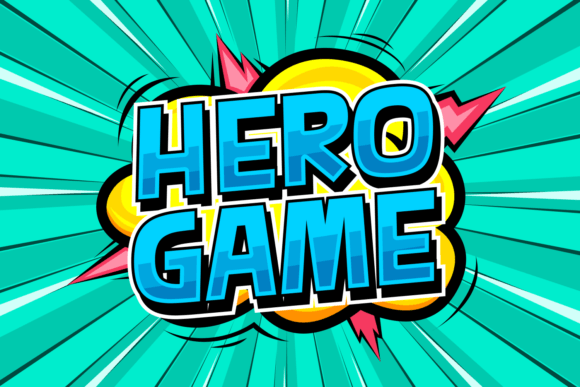
Embark on a wondrous typographic adventure with Hero Game Font, a display font brimming with boldness and versatility. Its thick characters, reminiscent of valiant warriors, exude strength and confidence, while its friendly demeanor invites warmth and approachability. This extraordinary font is an invaluable asset to your design arsenal, ready to breathe life into your creative endeavors.
Picture this: a captivating poster that demands attention with its bold headlines, adorned with the Hero Game Font. Its sturdy letters command presence, ensuring your message cuts through the noise and leaves a lasting impression. Or, envision a book cover that enchants readers with its mystique, the title emblazoned in the Hero Game Font. Its inviting curves and playful angles hint at untold stories, beckoning readers to delve into the pages.
Step into the realm of advertising and witness the Hero Game Font's transformative power. Its bold strokes add impact to your marketing materials, drawing eyes and capturing hearts. Imagine business cards that stand out from the crowd, their names proudly displayed in the Hero Game Font. Its unique style ensures your brand leaves an unforgettable mark, encouraging potential customers to reach out and connect.
The creative possibilities are endless with Hero Game Font. Unleash your imagination and adorn banners with its bold presence, creating a visual symphony that captivates audiences. Elevate product packaging with its distinctive charm, turning ordinary boxes into works of art that demand attention on shelves. Craft headlines that grab readers by the eyeballs, leaving them eager to discover more.
Hero Game Font is not just a font; it's a gateway to a world where creativity knows no bounds. Its versatility extends beyond digital realms, inviting you to explore its potential in physical spaces. Carve it into wooden signs, adding a touch of rustic charm to your home or business. Etch it into metal, creating personalized jewelry that tells a unique story. The possibilities are boundless, waiting for you to unlock them.
Seize the opportunity to elevate your designs to heroic heights with Hero Game Font. Its bold strokes and friendly demeanor make it the perfect choice for captivating posters, enchanting book covers, impactful advertising materials, distinctive business cards, eye-catching banners, unique product packaging, and headlines that command attention. The Hero Game Font is your secret weapon to conquer the world of design, one letter at a time.